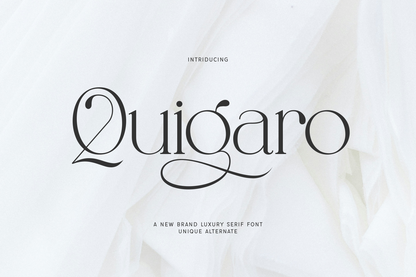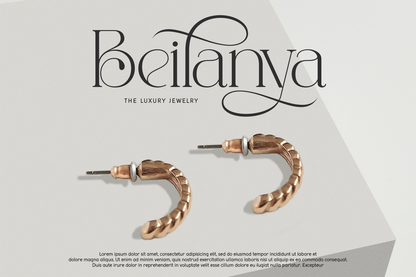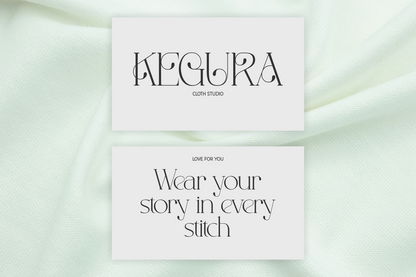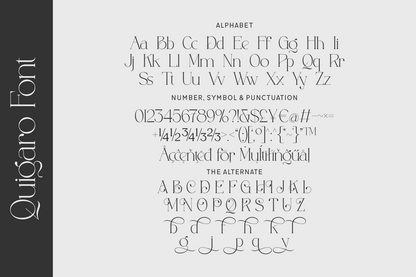
Quigaro is a luxury serif font with unique, high-contrast letterforms and intricate alternates that exude refinement. Designed for high-end branding, invitations, and editorial spreads, this font brings a whisper of glamour and class. Its artistic curves and fluid ligatures make it perfect for adding a sophisticated voice to modern designs.